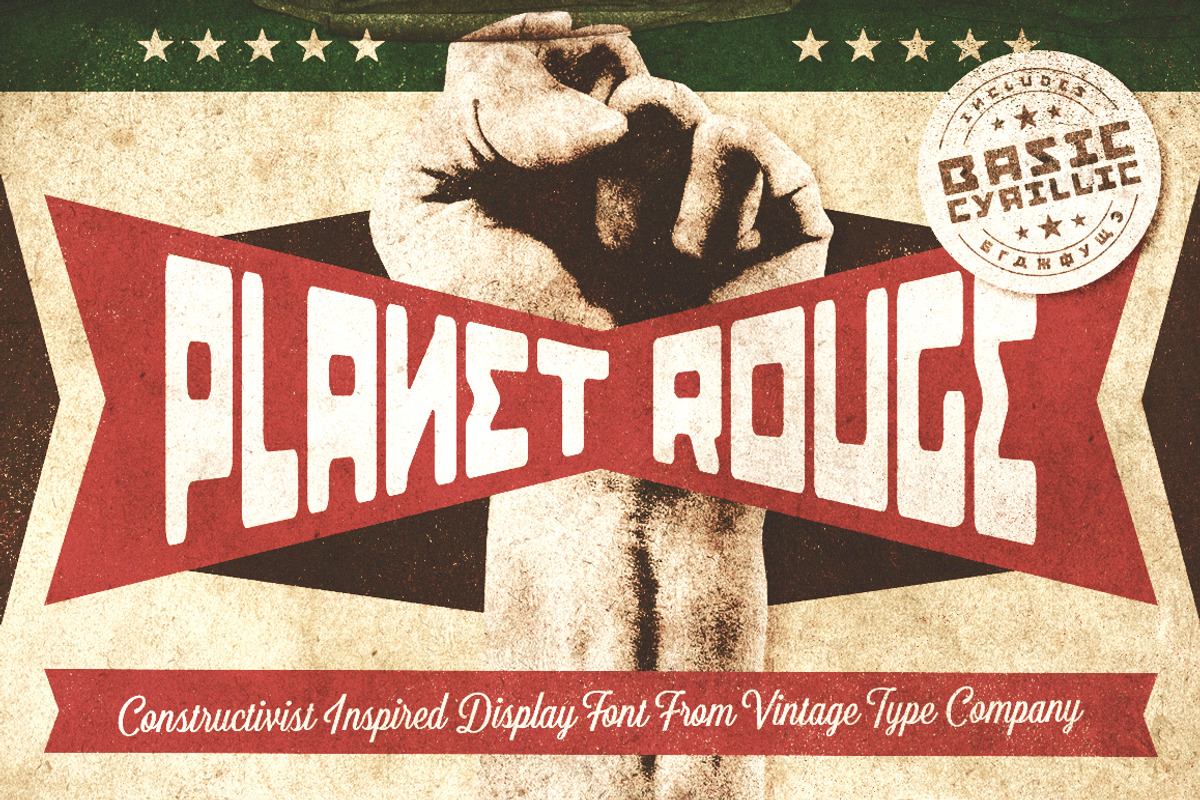
Planet Rouge Display Font Free Download is a bold, futuristic typeface with a sleek sci-fi edge. Designed to capture attention, this font is perfect for movie titles, tech branding, gaming interfaces, space-themed posters, and modern editorial layouts. Its geometric forms and high-impact style make every word feel powerful and forward-thinking.
Whether you're crafting a cutting-edge logo or an eye-catching headline, Planet Rouge delivers sharp, clean visuals with a touch of interstellar flair. It’s a must-have for designers exploring futuristic or experimental aesthetics.
This display font performs best when used for large-scale text and high-contrast designs, giving your work a distinct and memorable look.